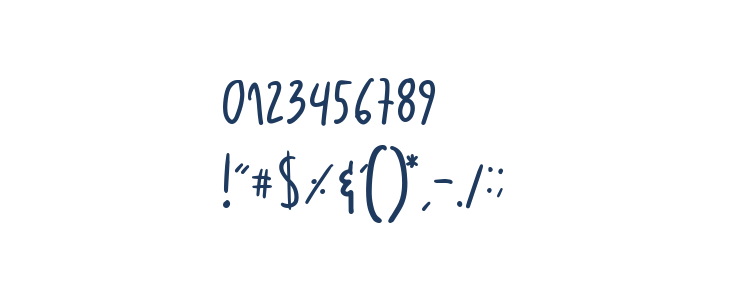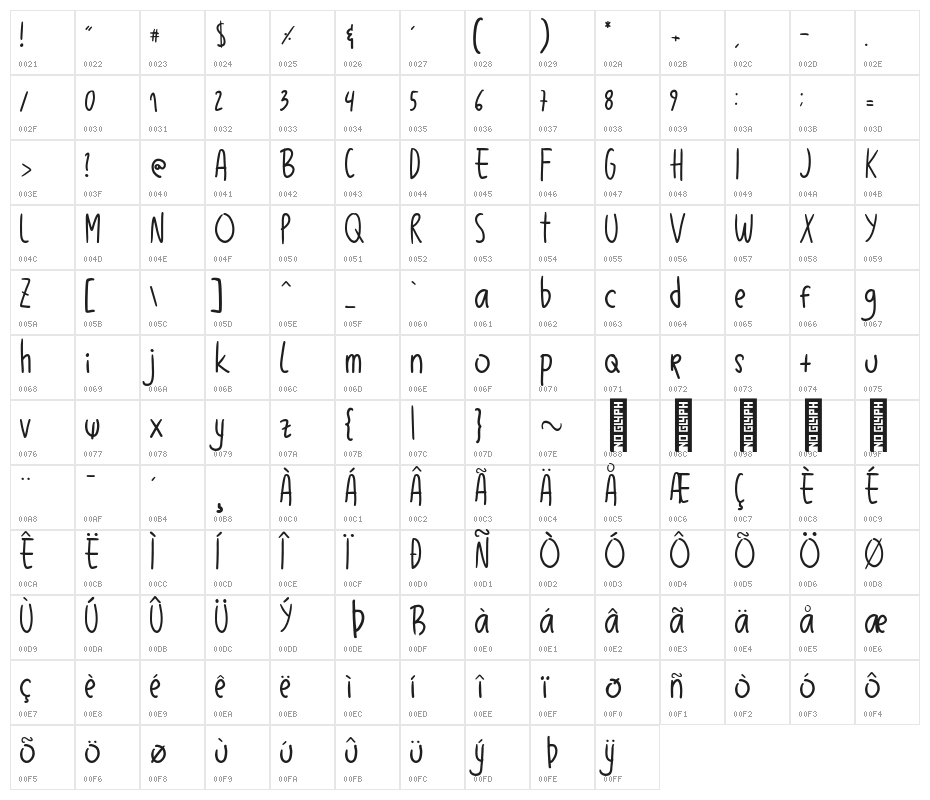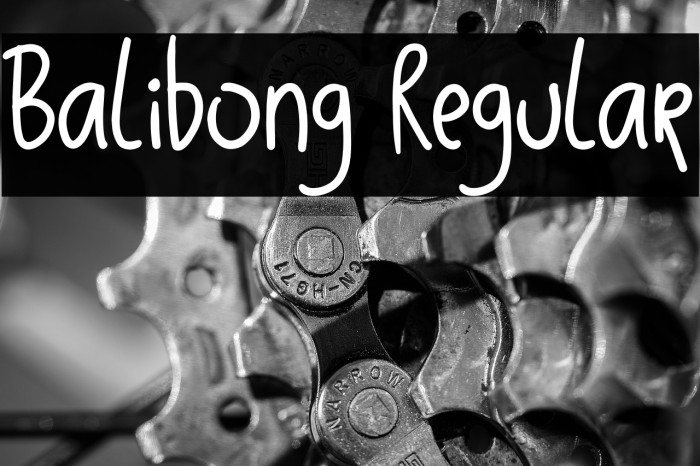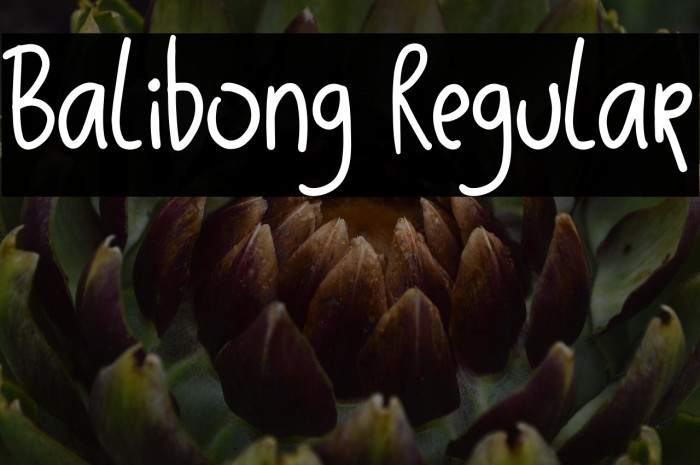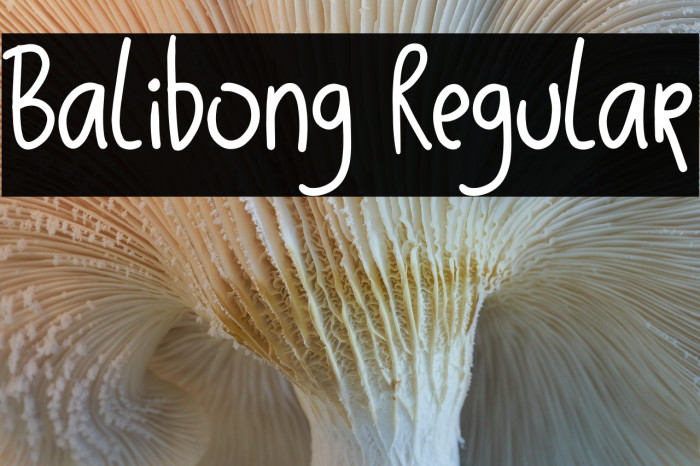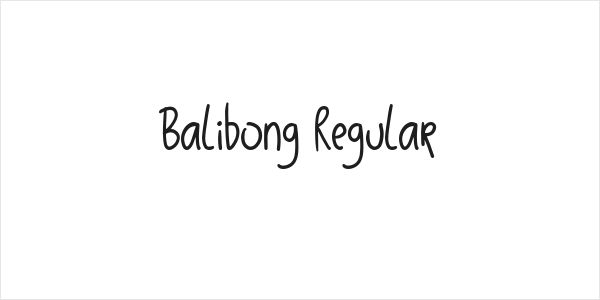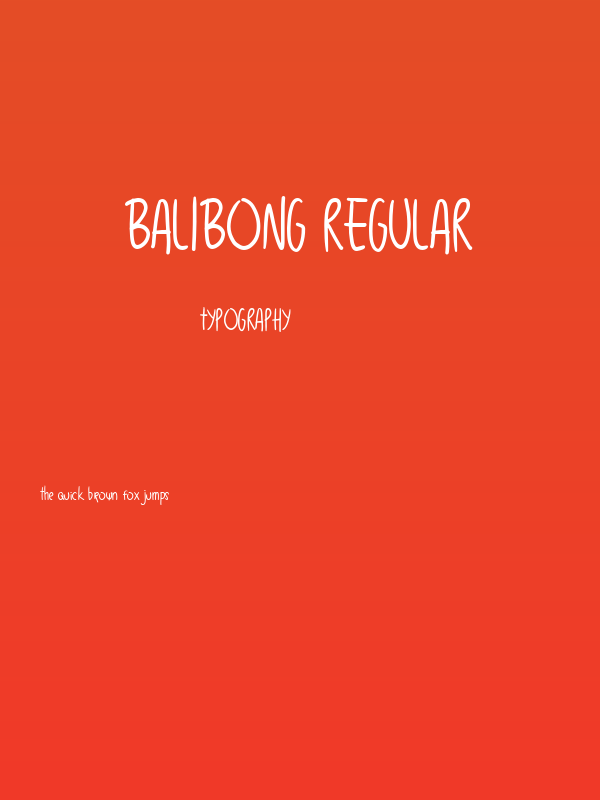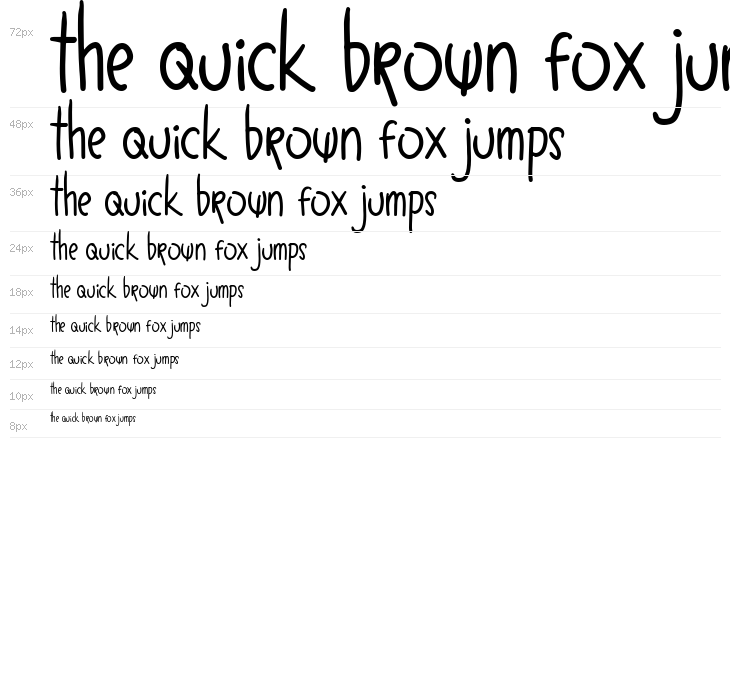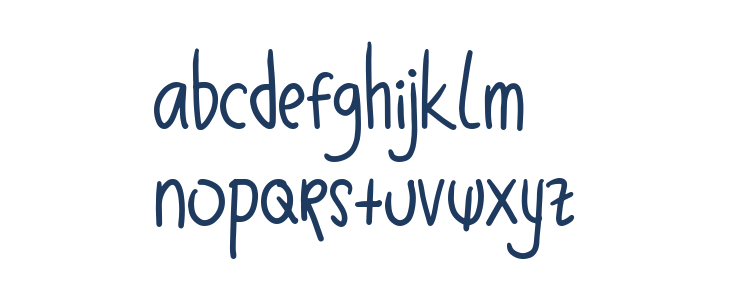
Balibong Regular Font
Balibong Regular Description
This font exhibits a playful and casual handwritten style, characterized by its irregular strokes and organic flow. The uppercase letters are tall and slightly narrow, giving a sense of height and elegance, while the lowercase letters maintain a consistent and smooth curvature. The numbers are clear and legible, matching the overall informal aesthetic. Special characters are creatively designed, adding to the font's unique personality. The font's overall appearance is friendly and approachable, making it suitable for projects that require a personal touch.
| Proposed Projects | Ideal for greeting cards, children's books, personal branding, and creative posters. |